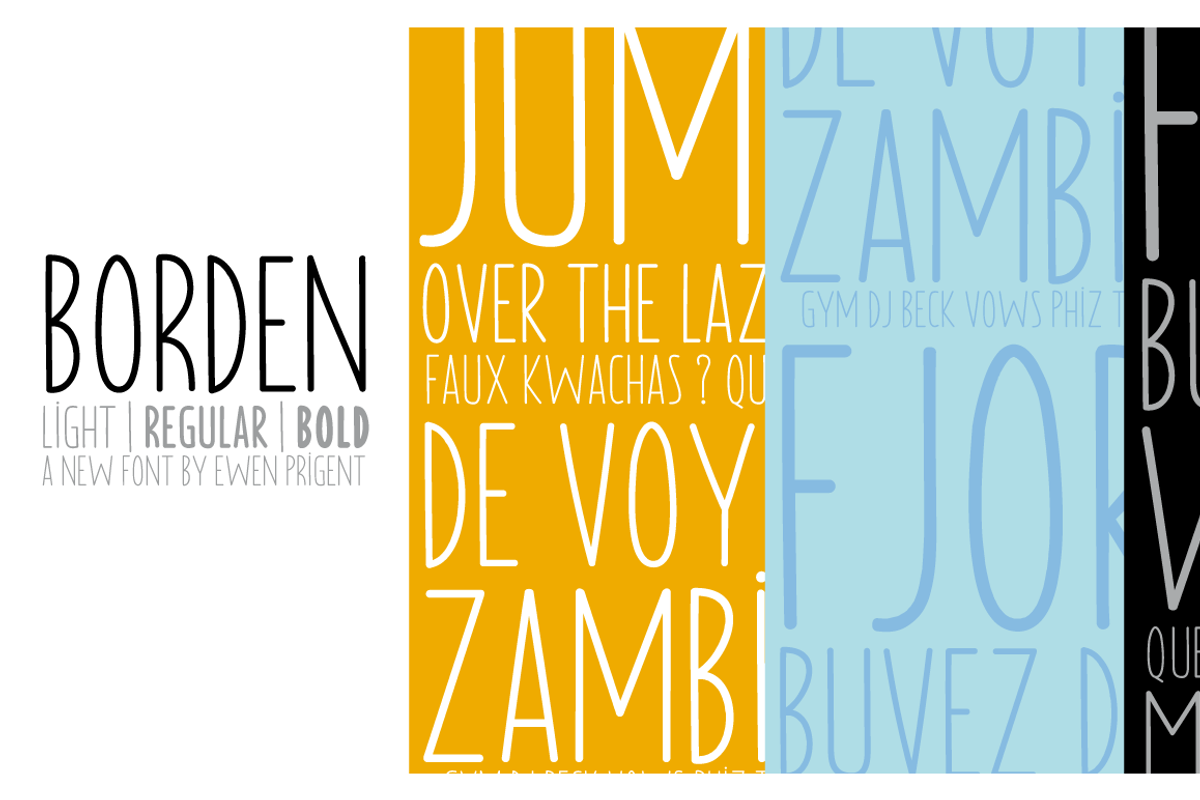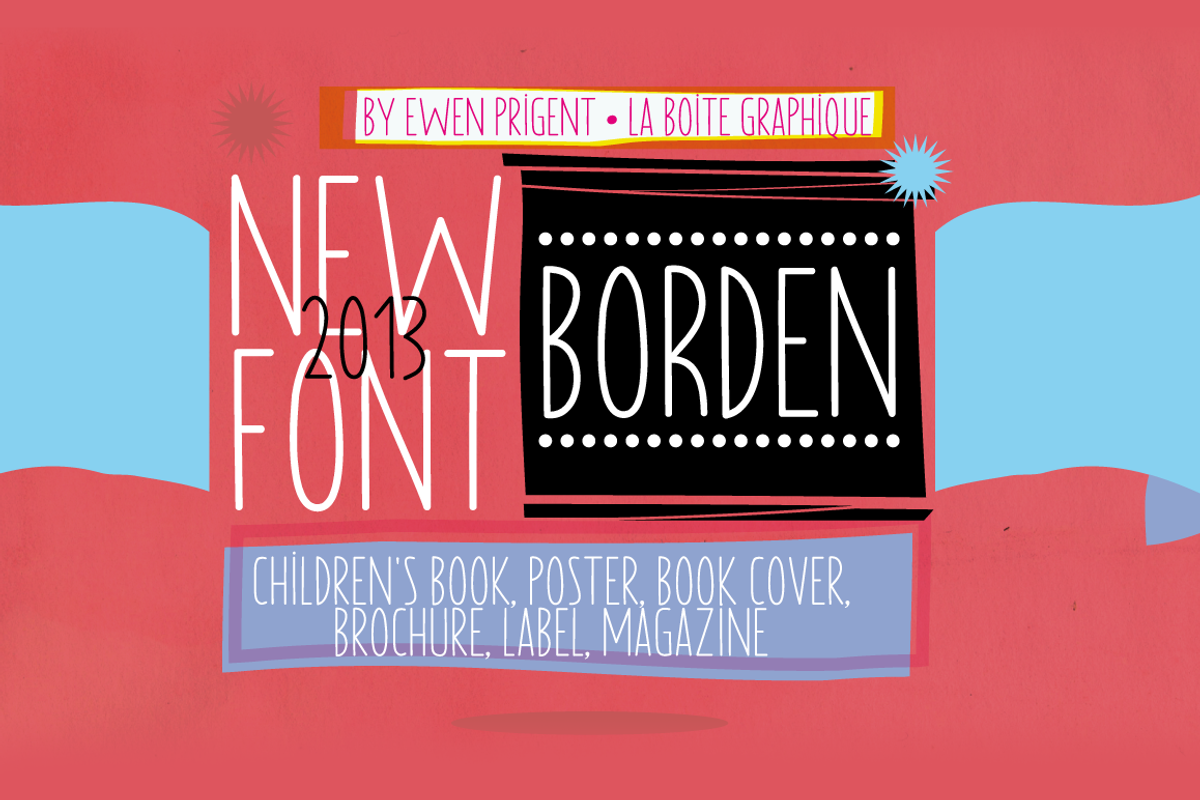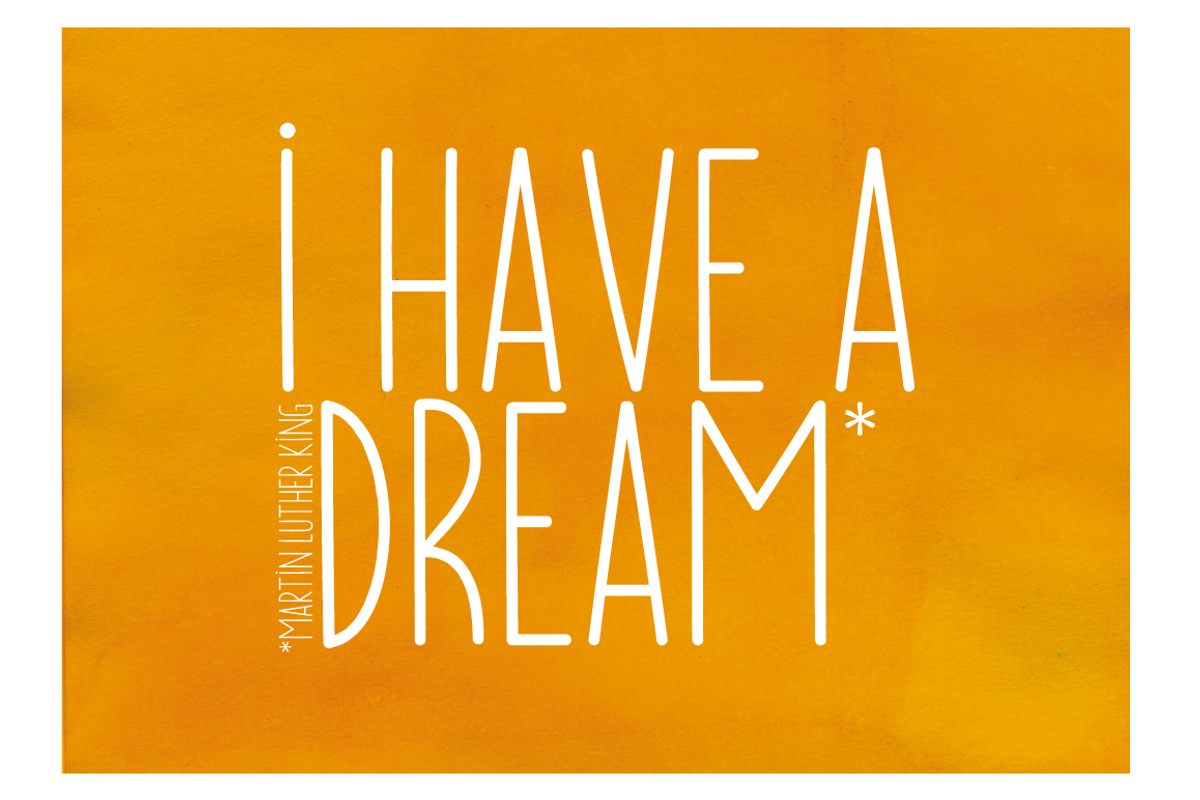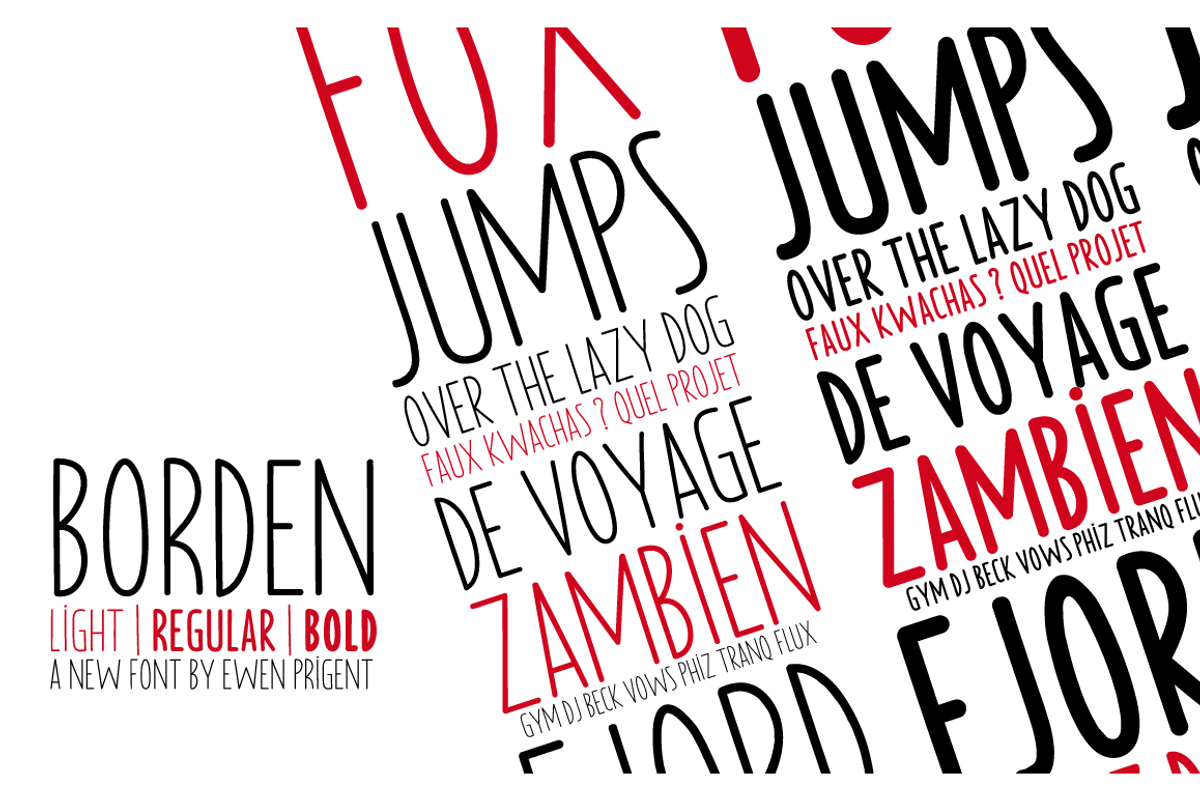
Borden
Borden is a rounded hand-printed caps font ideal for your graphic project. Usage recommendations : Title, short text, children’s book, poster, book cover, brochure, label, magazine.
"The friendly hand-drawn charms of the Borden family […] Designed by Ewen Prigent, the Borden family is a hand rendered, all-caps design ideal for all sorts of playful settings. With its narrow condensed letterforms and rough rendering, this family is a good fit when space is limited in your design but you don’t want to compromise its friendly tone." www.fonts.com - newsletter - march 2014